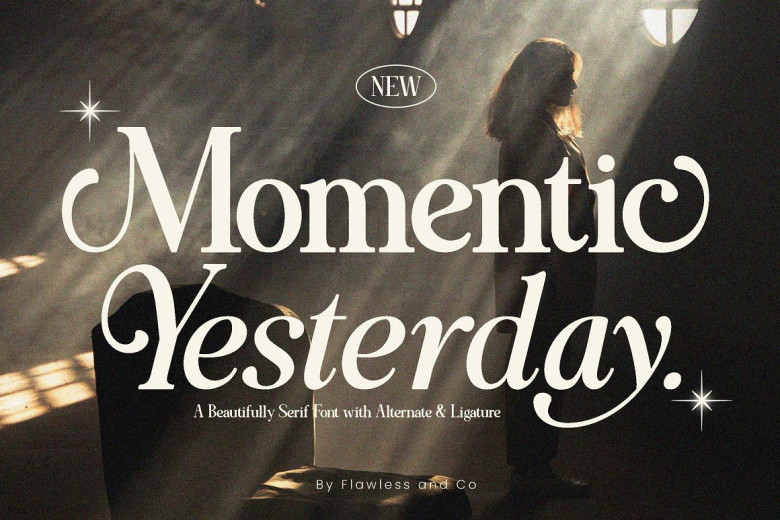
Momentic Yesterday Font
Momentic yesterday is an elegant and retro Serif Italic Duo font designed specifically for wedding invitations, featuring alternates and connected letters which can also be used for graphic designs such as branding materials, tee-shirt prints, posters, business cards logos t-shirt photography or quotes.